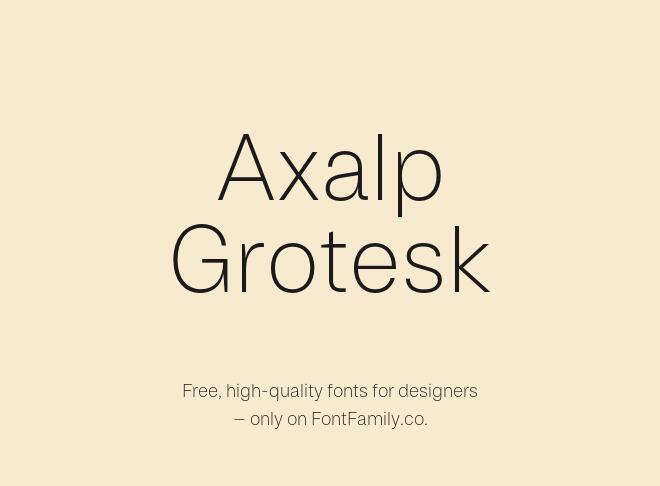
Axalp Grotesk Font
Axalp Grotesk Font is a modern, geometric, and minimalistic typeface that exudes a sense of sophistication and professionalism. Crafted by Axalp Design Studio, this sans-serif font is characterized by its clean lines and balanced proportions, making it a perfect choice for branding, web design, and print projects. Compared to other fonts, Axalp Grotesk stands out with its unique charm and readability, even at smaller sizes. Its versatility makes it suitable for a wide range of applications, from corporate identities to editorial design. Whether you're aiming for a modern, chic, or minimalist style, Axalp Grotesk Font can help make your design stand out. Its free for personal use license makes it an excellent choice for designers who want to enhance their projects with a touch of elegance and modernity.